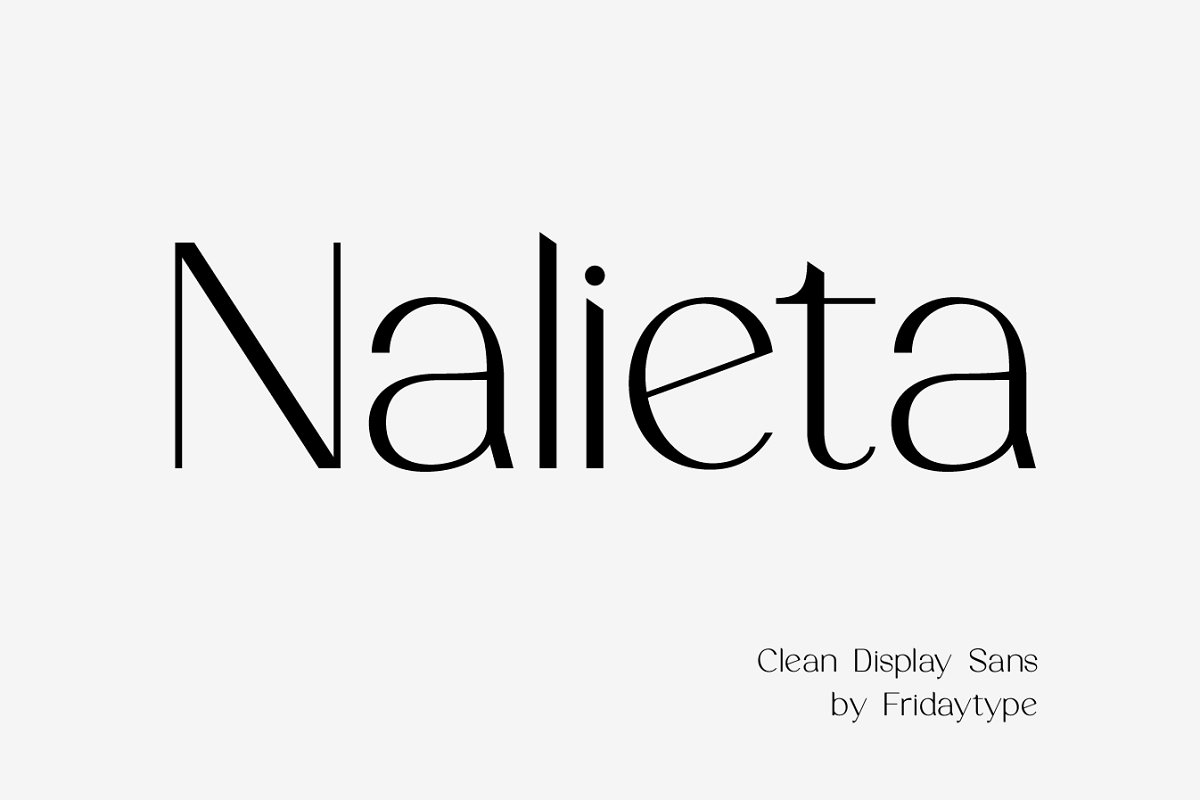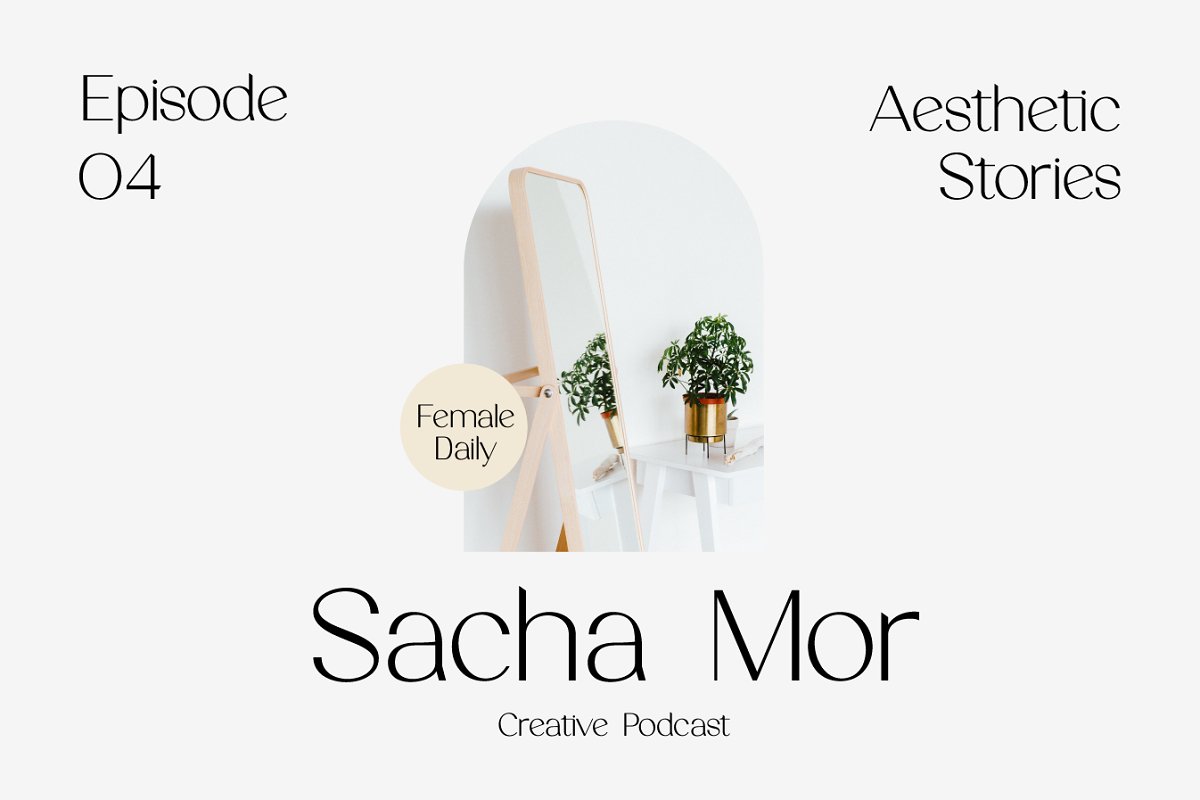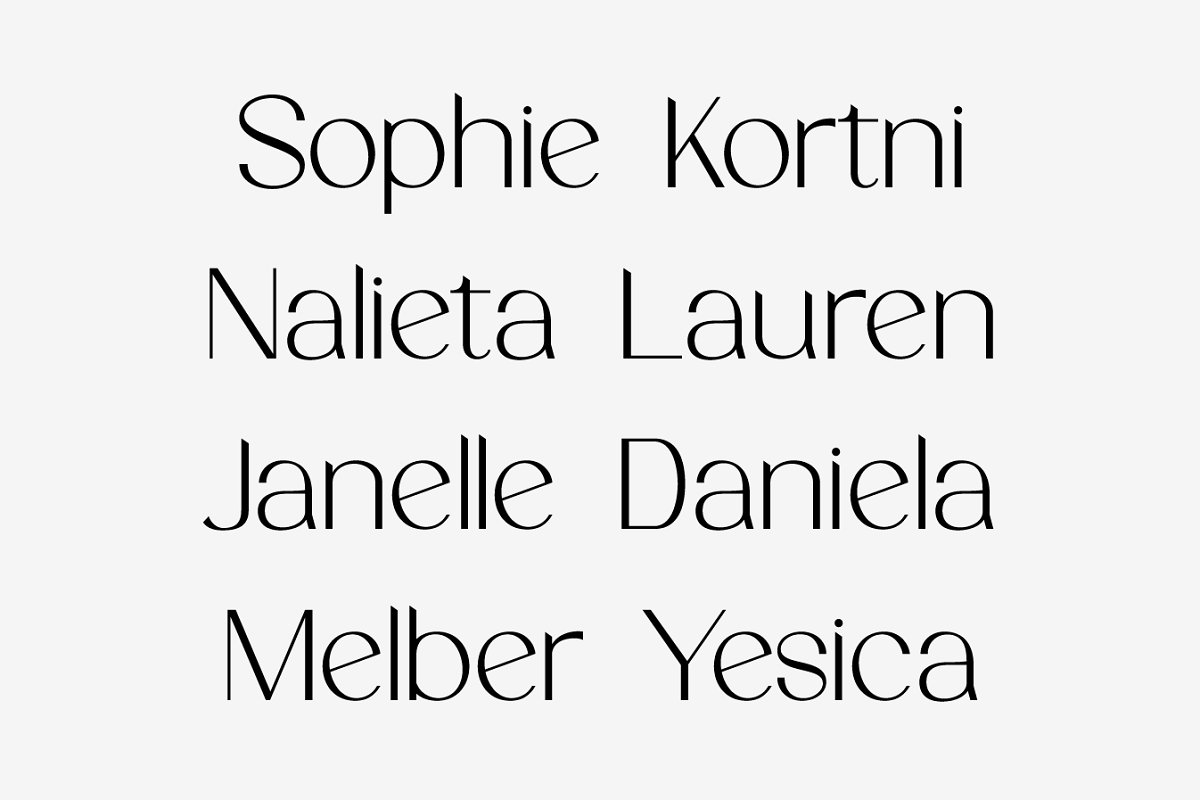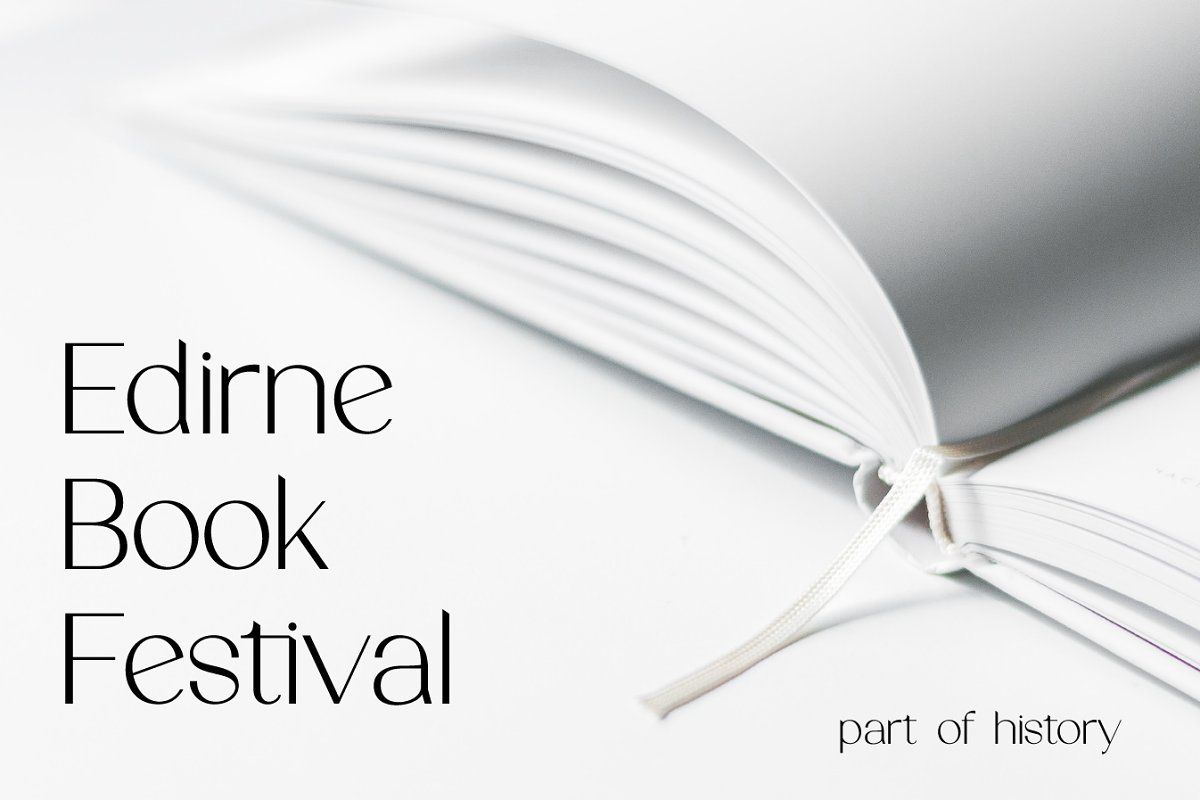
About the Nalieta Clean Display Sans
Nalieta – Clean Display SansNalieta is a clean display sans font with simple, clean, and beautiful ligatures, Specially designed for elegant-themed projects, perfectly suitable for creating simple, clean, lifestyle design such as logos, title, and magazine and more, This beautiful font perfect for branding projects, logo, wedding designs, social media posts, advertisements, product packaging, product designs, label, photography, watermark, invitation, stationery, and any projects